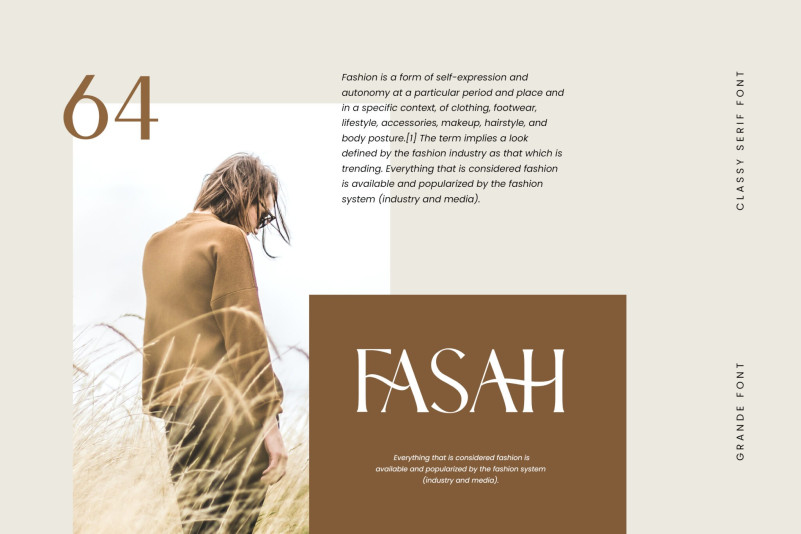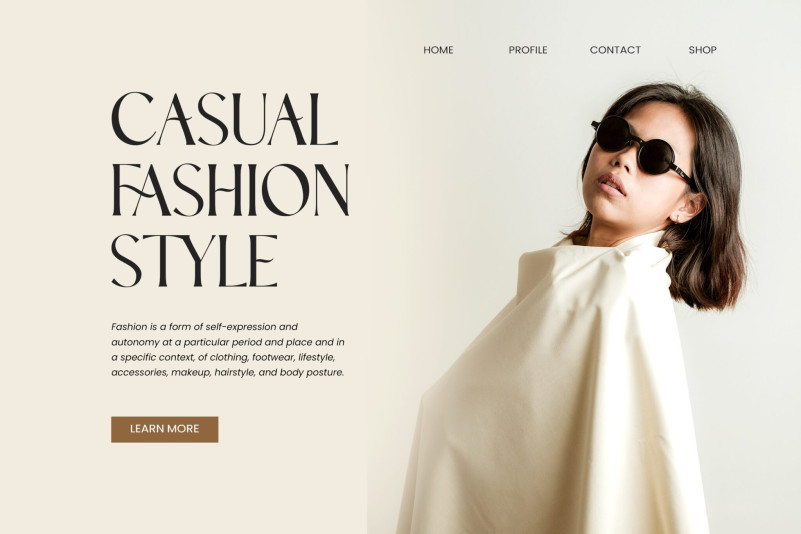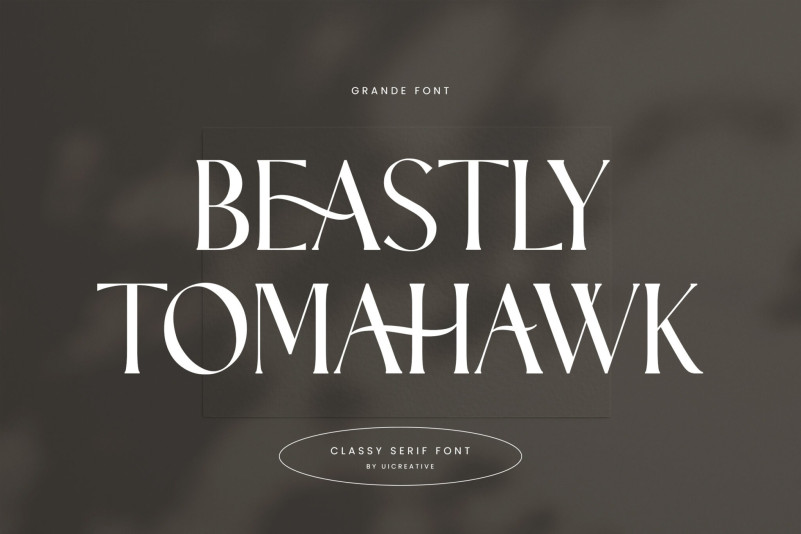
Beastly Tomahawk Font
Beastly Tomahawk Font – The modern signature font feels beautiful classy, elegant, and stylish. This font is ideally suited for a wide variety of projects, stationery, logo, wedding, magazine or book covers, website headers, branding, and more. Also, fashion-related branding or editorial design displays both masculine and feminine qualities.